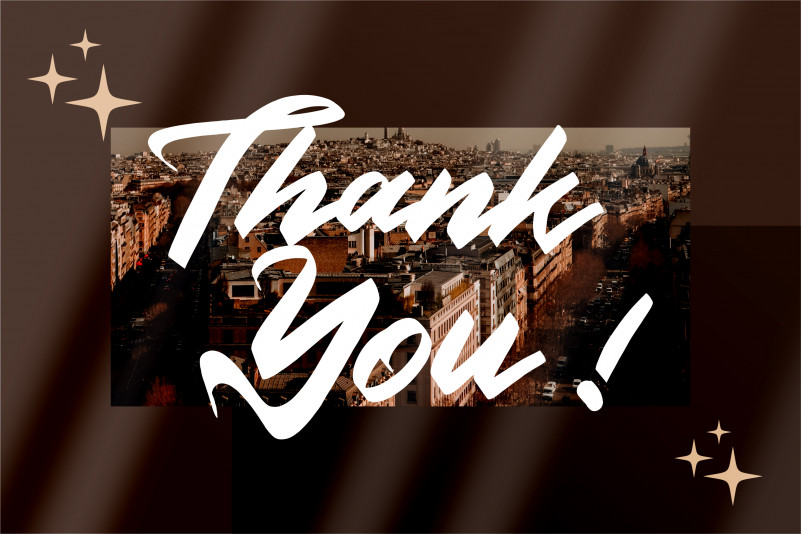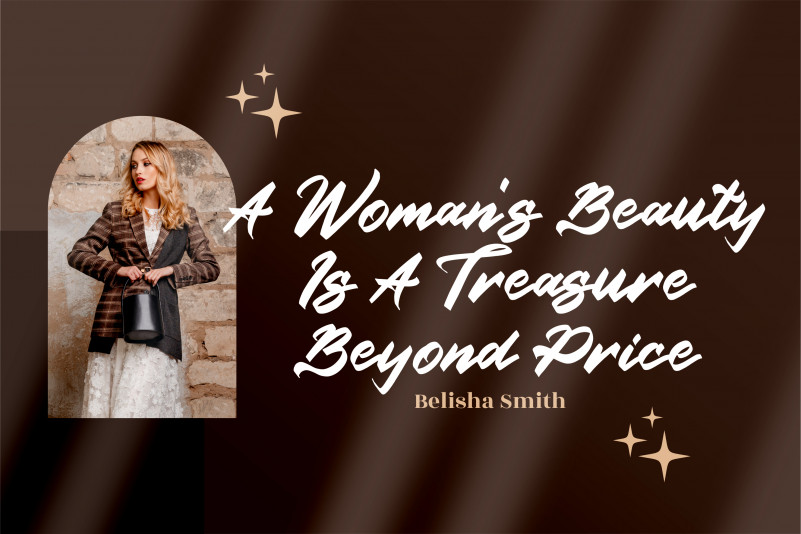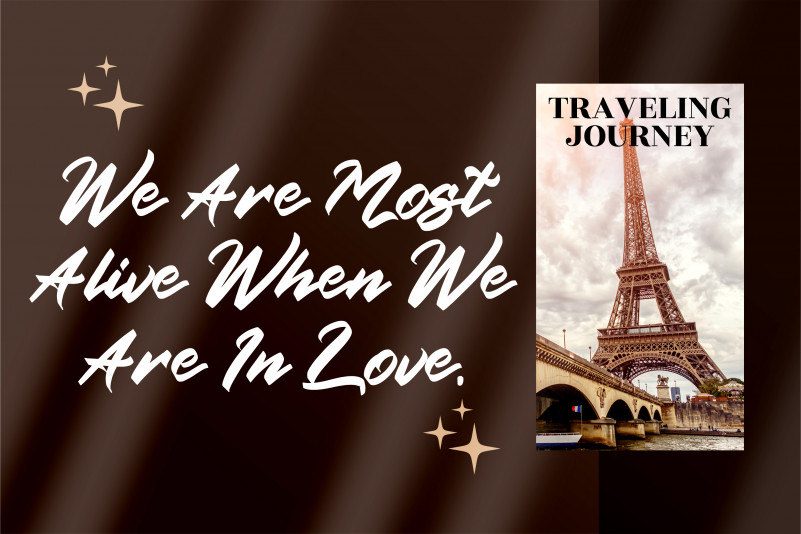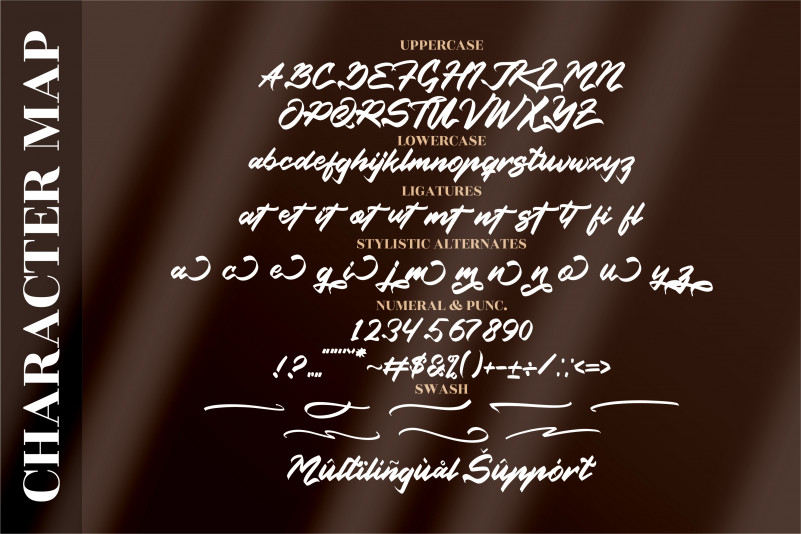
Belac Orlan Font
Belac Orlan Brush Font
It’s a handwritten font, suitable for any projects such as: logos, branding projects, homeware designs, product packaging, mugs, quotes, posters, shopping bags, t-shirts, book covers, name card, invitation cards, greeting cards, label, photography, watermark, special events, and all your other luxury projects that need a handwritten taste.